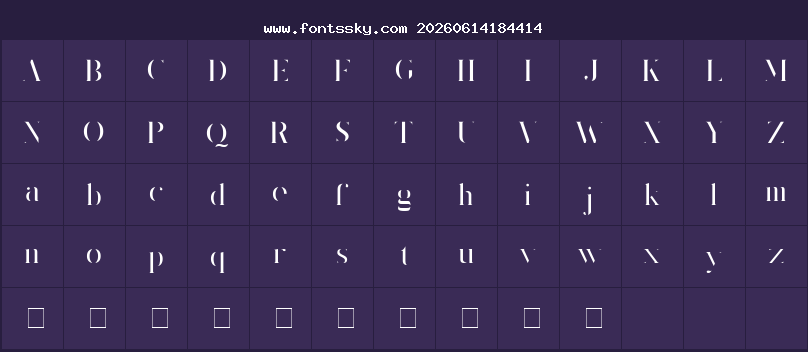
King's Gambit Preview
• Font Name: King's Gambit
• Full Font Name: King's Gambit
About King's Gambit.ttf
King's Gambit.ttf is a modern, elegant sans-serif font designed for ultimate readability and visual harmony. Perfect for branding, headlines, web design, and print materials.